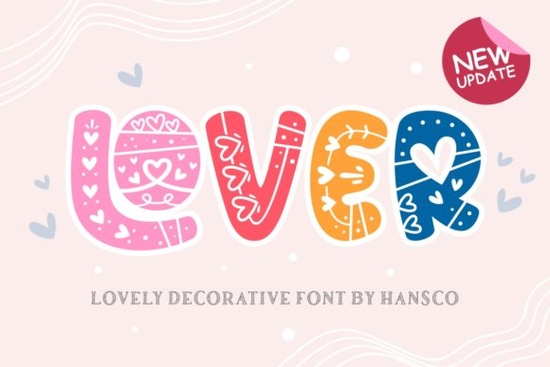
Finding the right typeface for playful projects can take a lot of trial and error. When you need something that feels approachable and warm, the Lover Font Font typeface is a highly practical choice for creative hobbyists and small business owners. This decorative style features rounded, friendly letterforms that work beautifully for children's products, cartoon-style graphics, and lighthearted branding. Instead of relying on stiff, formal typography, this aesthetic brings a natural, hand-drawn feel to your visual assets.
What makes this typeface work for children's designs?
Designing for a younger audience requires a specific visual tone. Kids respond well to soft edges, bouncy baselines, and recognizable, simple shapes. The rounded nature of this lettering mimics the way children learn to write, making it highly readable and comforting for early readers. If you are creating educational flashcards, bedtime storybooks, or classroom posters, this style keeps the mood light and engaging.
For crafters making physical items, the thick strokes hold up exceptionally well during the cutting and weeding process. Whether you are using a vinyl cutter to make decals for kids' water bottles, the bold and smooth curves prevent tearing and make the application process much smoother. If you find yourself exploring similar cute decorative styles for your portfolio, you will notice that maintaining legible, thick strokes is a common priority for successful craft designs.
How can print-on-demand sellers use this style effectively?
Print-on-demand sellers need versatile assets that appeal to specific niches without looking generic. This typeface fits perfectly into the family, parenting, and nursery niches. You can use it to create humorous parenting quotes on coffee mugs, cute milestone blankets, or graphic tees for toddlers. The key is to let the typography be the main focal point of the design.
When building a design, try downloading the Lover Font and testing it with different color palettes. Pastel colors, muted earth tones, and bright primary colors all work well with this bouncy lettering. To create visual contrast in a larger layout, you might pair it with a more rugged dinosaur-inspired typeface for a boy's nursery collection, or a clean, minimalist sans-serif for the smaller details like dates and names.
Which projects benefit most from a friendly, rounded aesthetic?
While this decorative style is highly versatile, it truly shines in projects that require a personal, handmade touch. Here are a few specific applications where this style performs best:
- Party invitations and stationery: Baby showers, first birthdays, and gender reveal parties benefit from the warm, welcoming vibe of these rounded letters.
- Digital planner stickers: Crafters who design digital sticker packs for tablet apps use this style for headers and motivational quotes because it feels organic and fun.
- Nursery wall art: Printable alphabet charts and name signs look highly professional yet approachable when set in a playful, decorative style.
- Packaging and labels: Small businesses selling homemade baby food, organic children's clothing, or handmade toys can use this typography on their tags to communicate a safe, family-friendly brand identity.
What should you consider when pairing this with other typography?
Because this decorative style has a lot of personality, it can easily overwhelm a design if overused. The best approach is to use it strictly for headlines, short quotes, or logos. For the body text or smaller subheadings, switch to a very simple, clean sans-serif font. This creates a necessary visual hierarchy and ensures your audience can read the important details without straining their eyes.
Pay close attention to kerning and line spacing. Playful fonts often have uneven baselines or extended swashes. Adjusting the tracking slightly can help the letters sit more naturally next to one another, preventing awkward gaps that might ruin the flow of a short phrase.
Quick Setup Checklist for Your Next Project
Before you finalize your next design, run through this quick checklist to ensure your typography looks professional and ready for production:
- Check the contrast: Ensure the font color stands out clearly against the background, especially for printed materials.
- Test the cut lines: If using a vinyl cutter, do a test cut on scrap material to verify the curves weed cleanly.